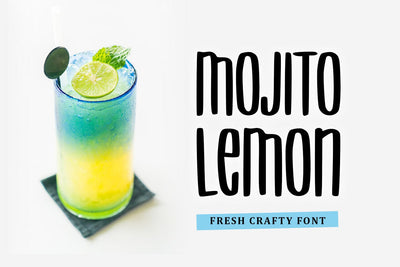
Mojito Lemon
introducing
MOJITO LEMON
- a fresh crafty font -
it is great for branding, quotes, logos, t-shirt designs, tote bag designs, cards, banners, social media, and more.